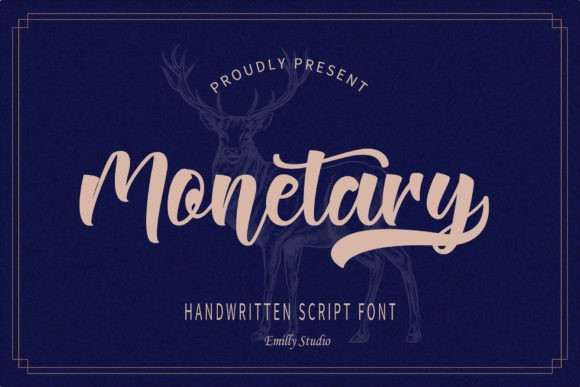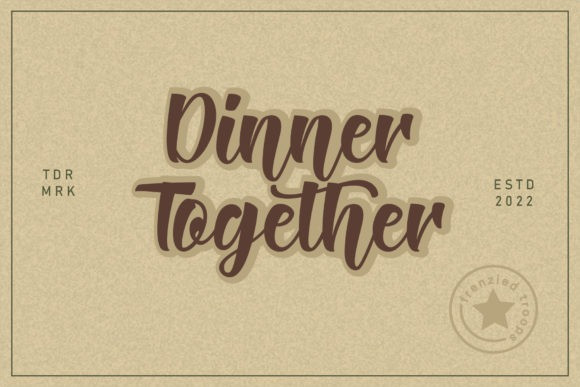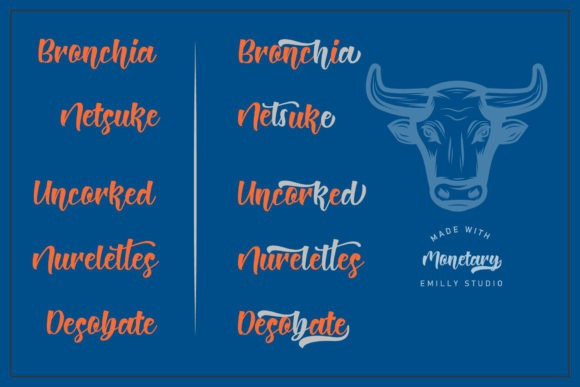
Monetary Font
Monetary is a gorgeous and retro styled script font. It will look stunning on any poster, flyer or print.
Use this font for your designs and explore its endless possibilities.